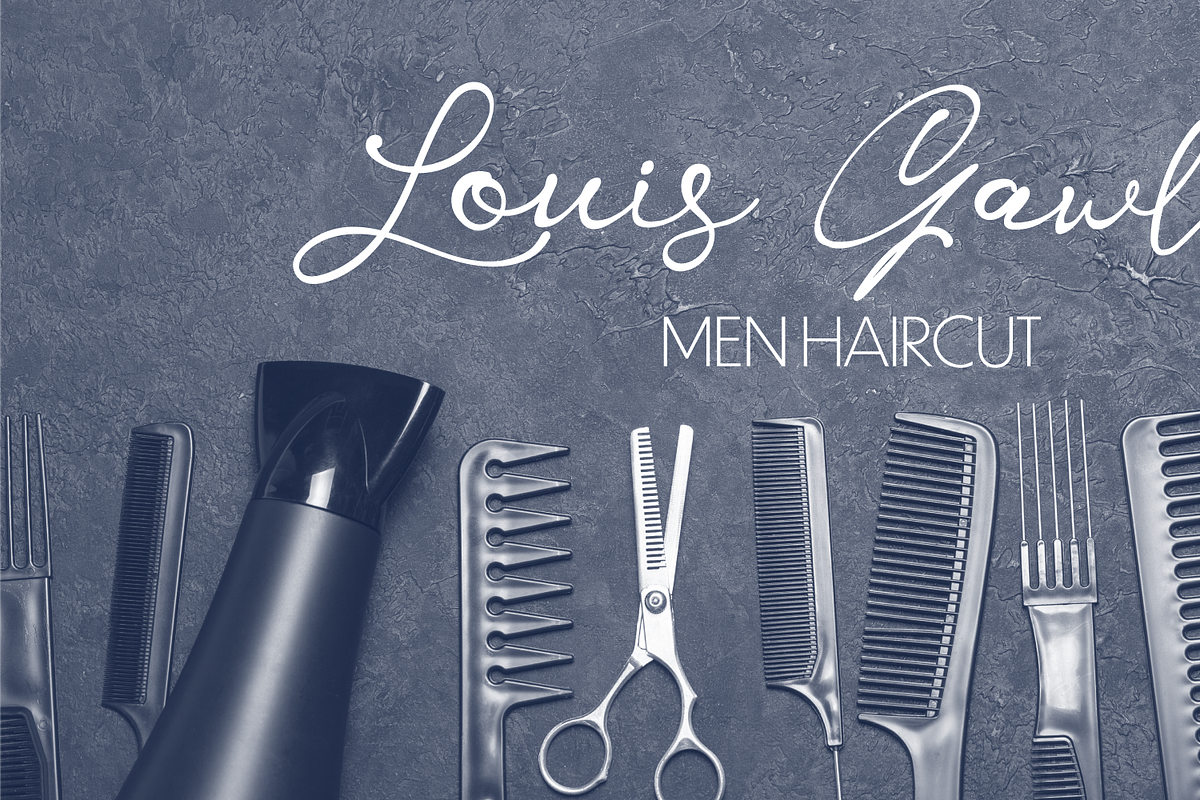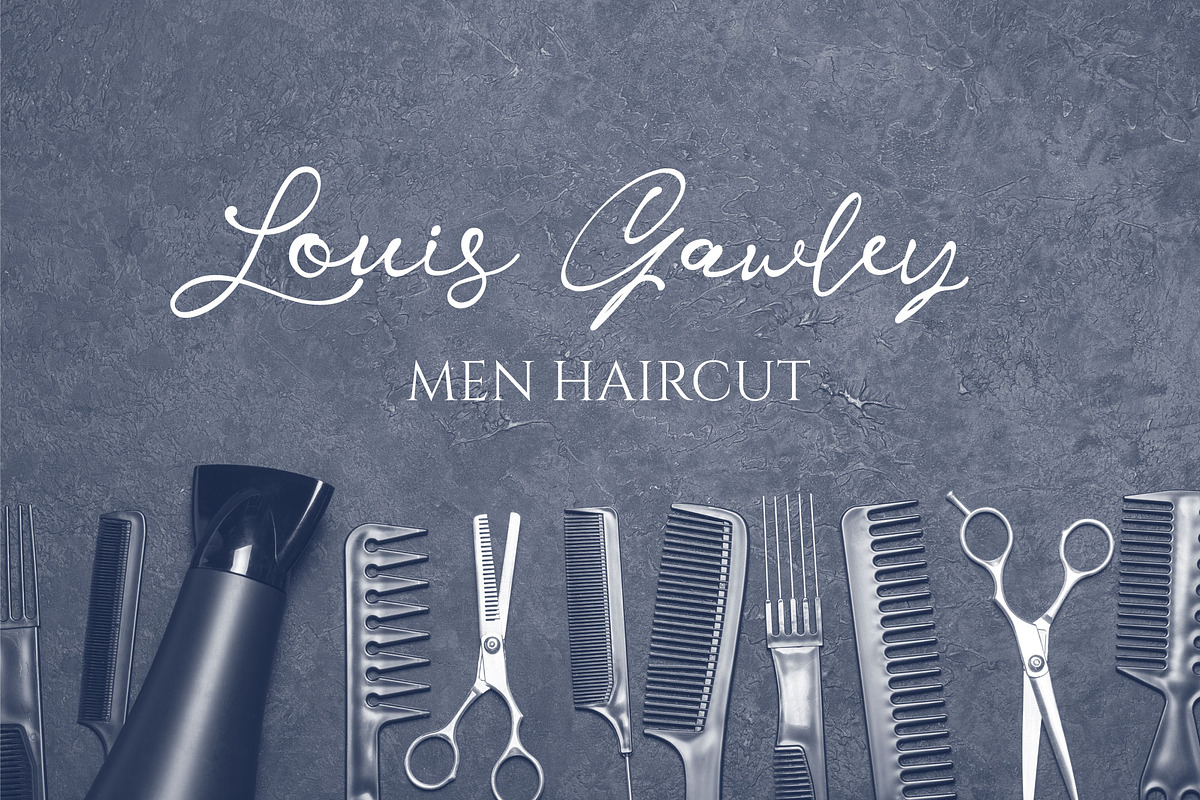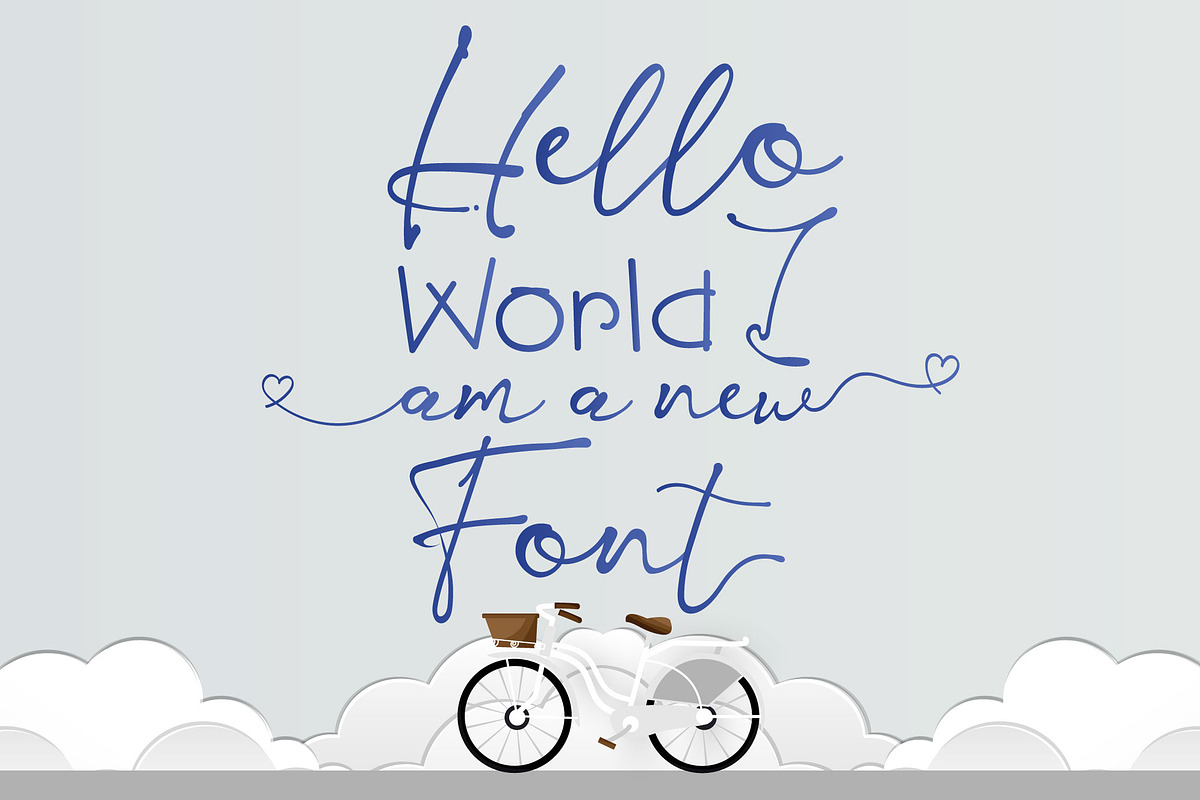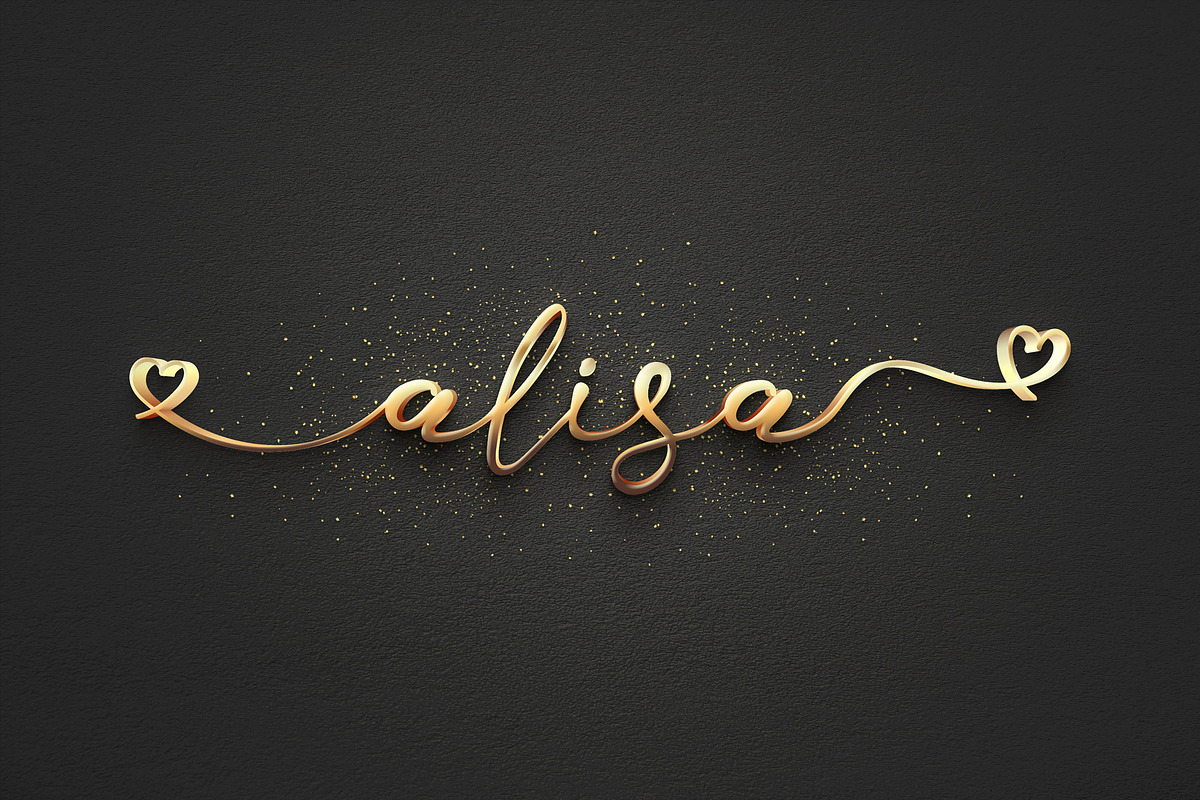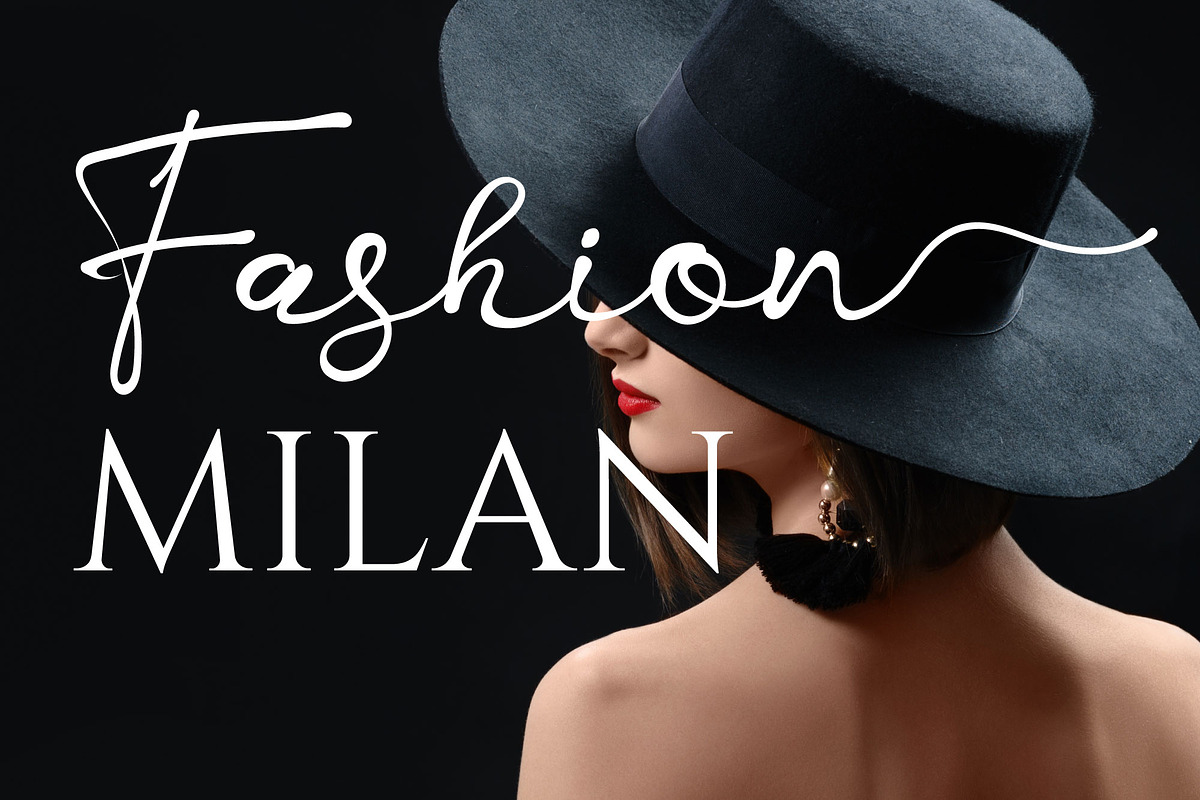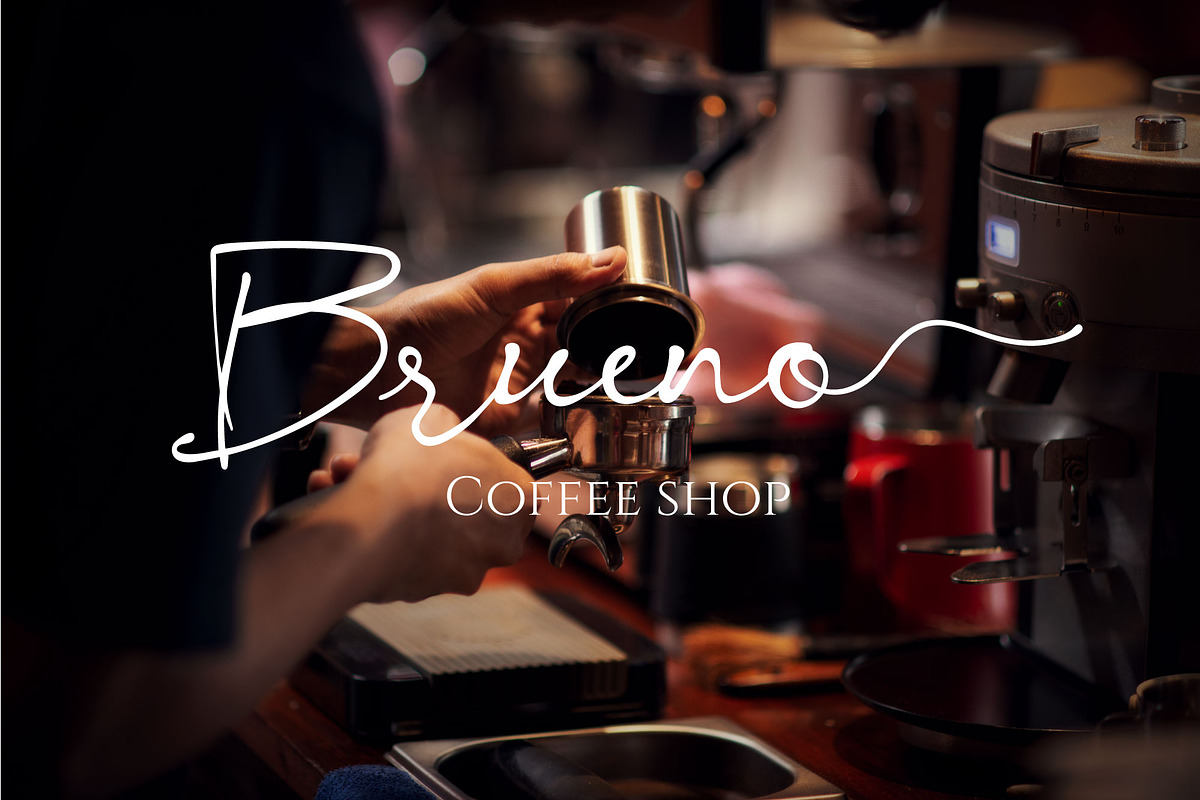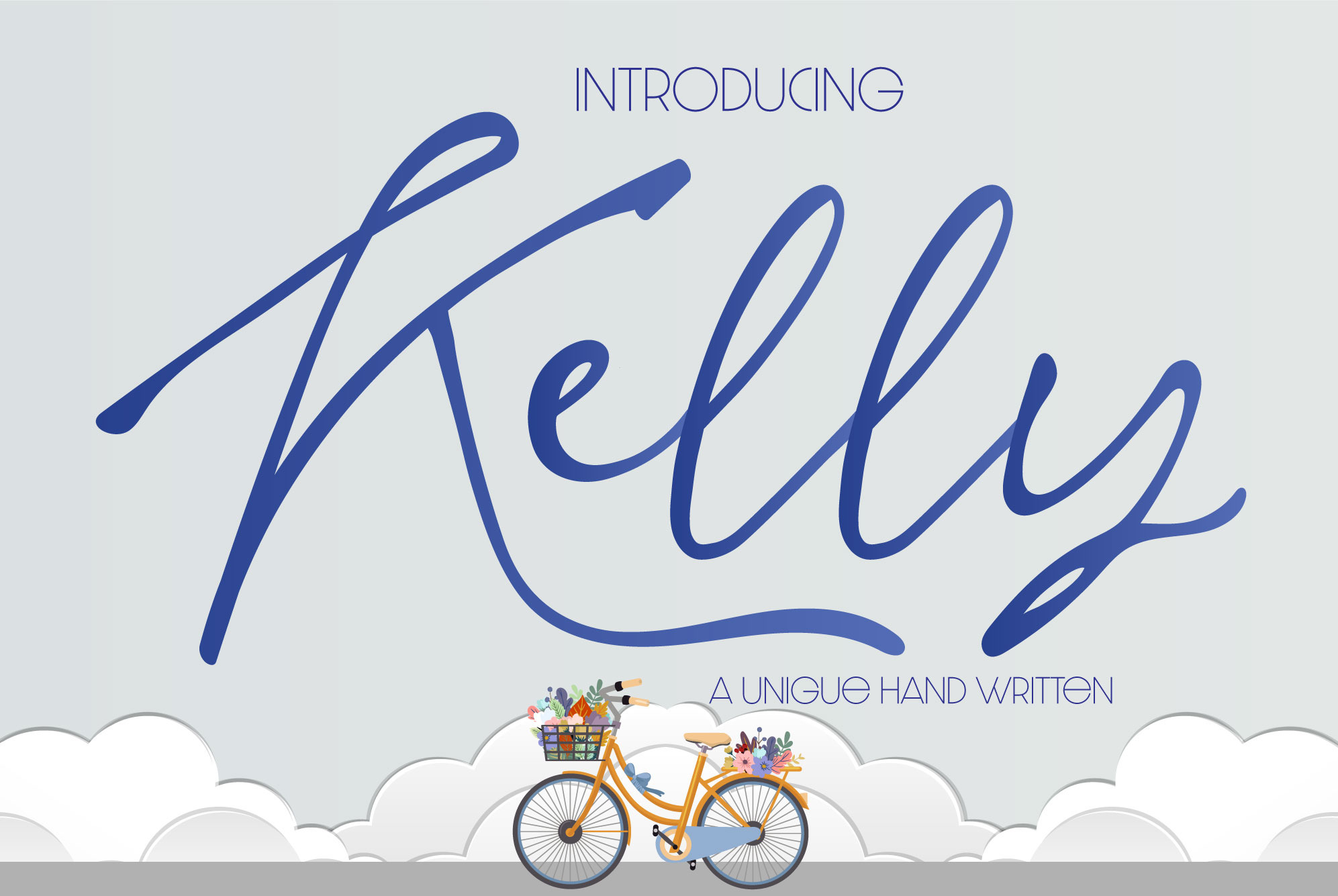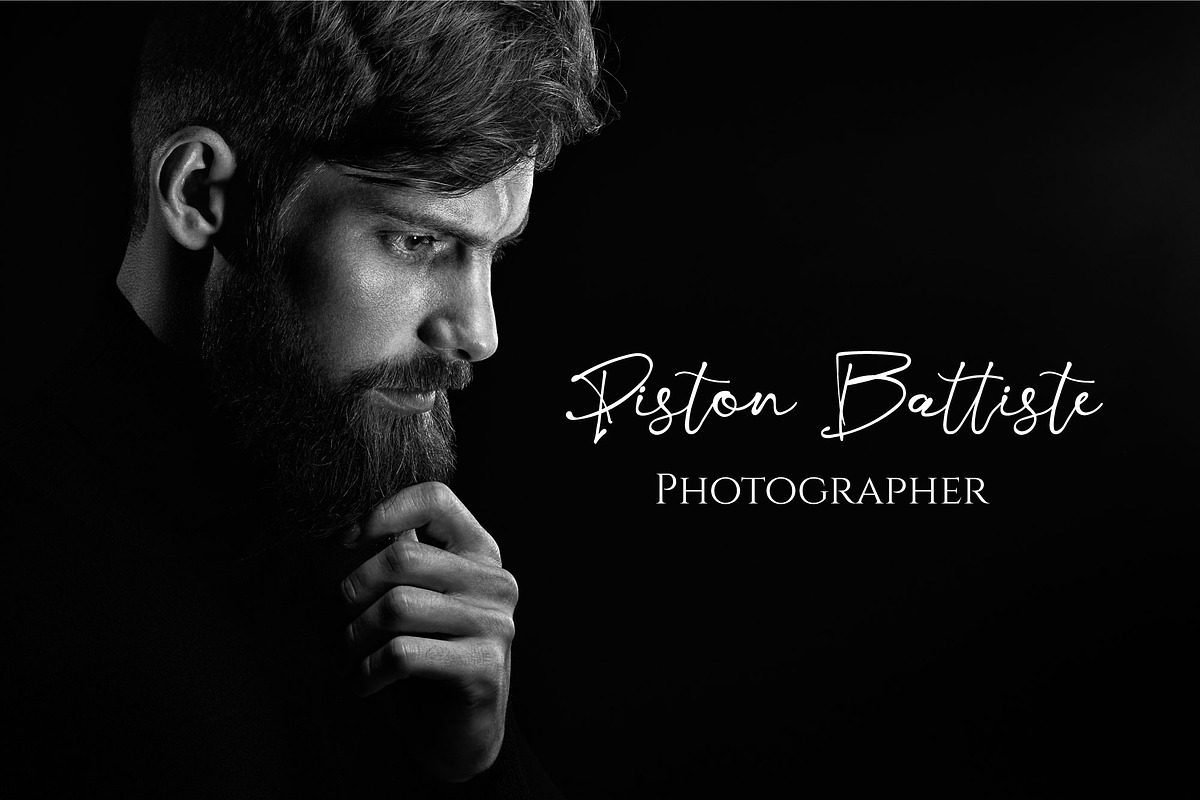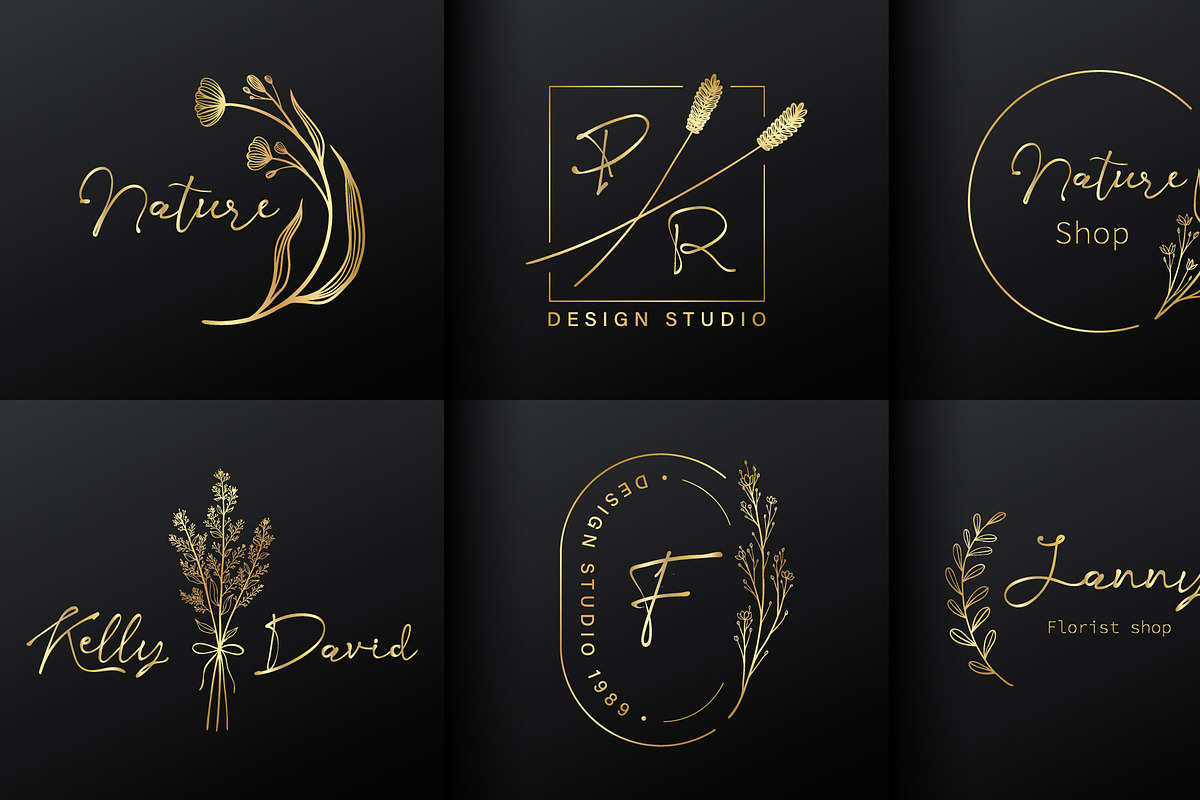
Kelly Signature Font
Kelly Signature is a captivating handwritten font that combines elegance with a touch of whimsy. Perfect for a wide range of design projects, from wedding invitations to branding. With regular and bold styles, ligatures, and multilingual support, this font adds a unique, personal flair to your creations. Elevate your designs with the charm of Kelly Signature today!